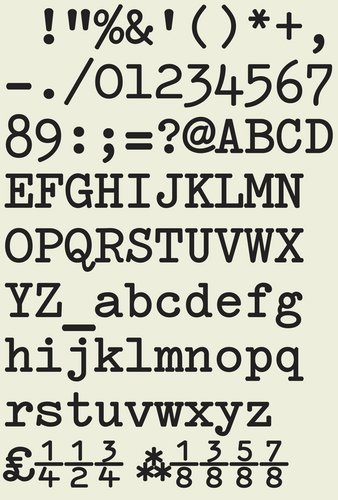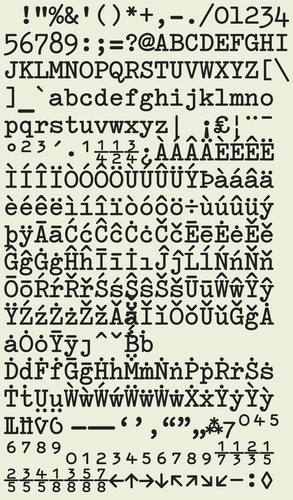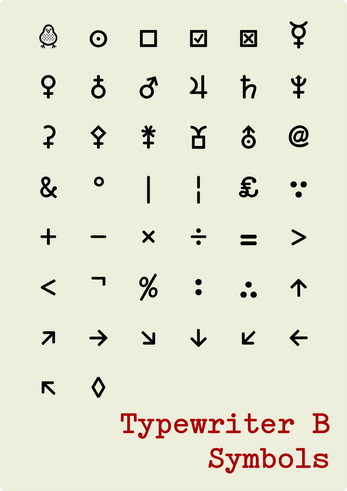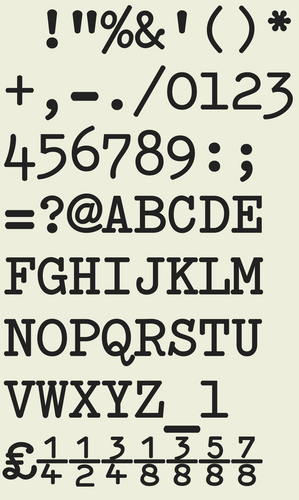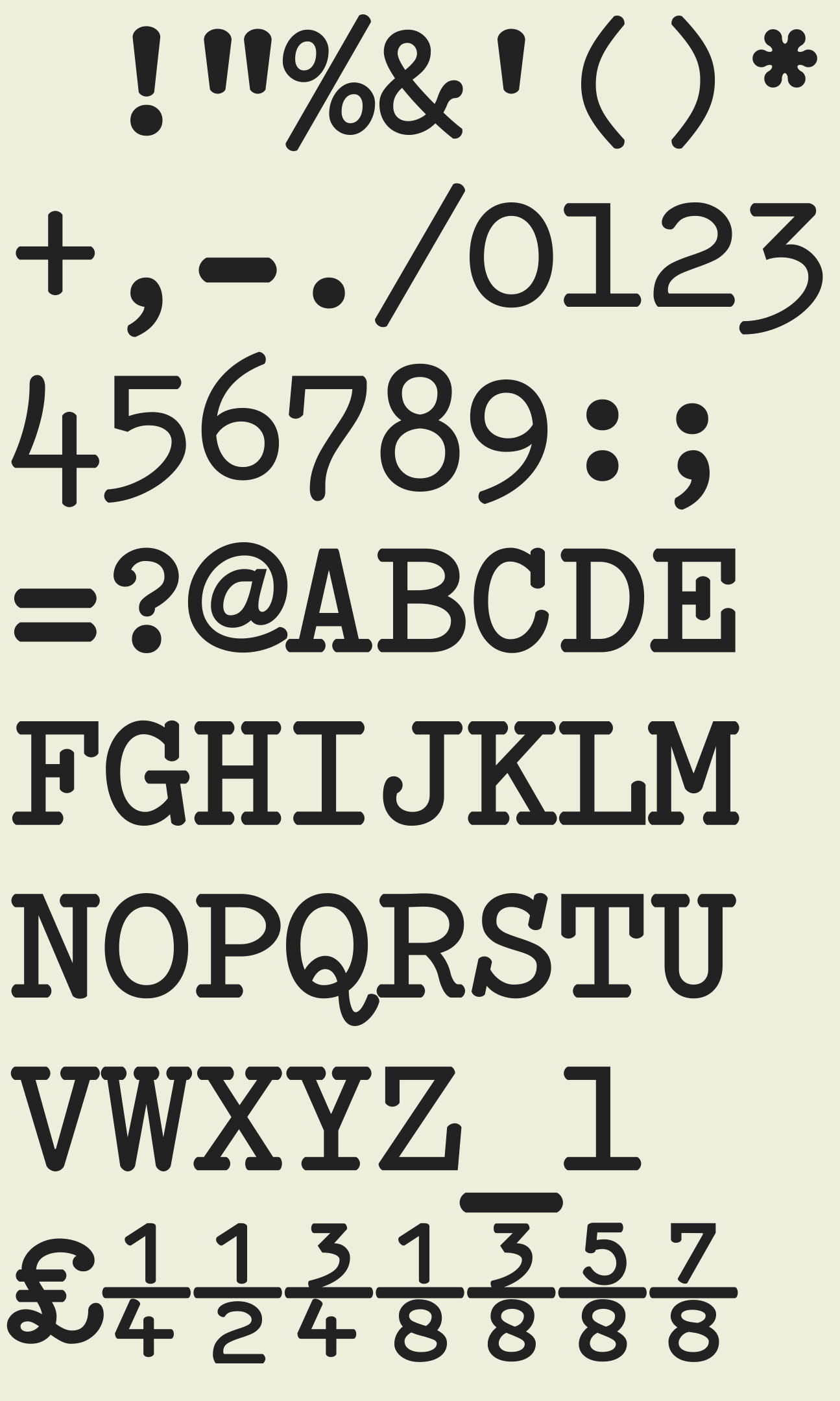
Typewriter B Font
B is for Brother (a robin-egg blue Brother De Luxe portable typewriter in not particularly good condition). It is fitted with a Pica font.
Print at 10 point to match original typewriter size and pitch. Default line spacing at that size is 12 point (120%) and matches single linespacing on the typewriter (6 lines per inch). Double linespacing is 240%.
The classic release has all the glyphs that the typewriter prints.
The extended release (on early access) has many more glyphs, and some OpenType Layout features for “fine typography”. Including Fediverse Symbol ⁂, curly quotes, dashes, small figures for superior and inferior numbers, a fuller set of fractions, additional language support, astronomical symbols, wayfinding arrows, and so on.
At 10 point text the horizontal frequency is 10.9 characters-per-inch, again matching the typewriter samples (it can be adjusted to 10cpi, see OpenType Features).
In addition to the usual OpenType Layout features required by language support, fractions, and smaller numbers (locl, subs, sinf, sups, frac and so on), there are two custom OpenType Features:
- ss02 Pica Pitch 10cpi, adjusts all widths so that the horizontal pitch is 10 characters per inch, matching the common typewriter pica pitch.
- ss01 Roseum One, replaces the 1 (one) glyph—normally a clone of l (little letter L)—with a clone of I (capital i), matching the preference of Roseum Team.
The typewriter has a half-position feature, accessed by holding down the space bar and then typing a letter. In partial emulation of this, this font has a half-width space: the Unicode character U+2004 THREE-PER-EM SPACE.
After the 2025-10 release, all new glyphs are ones that are not found on the typewriter.
Many Latin script languages are supported with accented letters, including Welsh, Slovenian, Māori, Irish, and Ento. Including for written Irish traditional dotted lenition (ḃ, ċ, ḋ and so on), ⁊ Tironian Et. Basic Middle-Welsh is supported.
This release also incorporates Astronomical Symbols and other changes made for Advent of Type.
And a bonus BIRD.
Added
- curly quotes, guillemet (quotes for French);
- bullet, lozenge, ballot boxes
- upside down exclamation and question mark (Spanish);
- minus, divide ÷, multiply ×, NOT SIGN ¬, and degree;
- numbersign #, <, >, ∴, ∵
- (square) brackets;
- em- and en-dashes, vertical bars, and arrows;
- fractions, all the Unicode fractions you can draw with the existing 1, 2, 3, 4, 5, 7, 8;
- superior and inferior numbers;
- Enough accents to support Welsh, Slovenian, Māori, and Ento, largely following Koeberlin Latin S: grave, acute, circumflex, macron, dot (above), diaeresis, caron (háček), diaeresis below;
- Þ þ Å å Ů ů
- Tironian Et (Irish);
- Middle-Welsh LL and V: U+1EFA U+1EFC U+1EFB U+1EFD
- Astronomical Symbols: SUN, (the planets) MERCURY, FEMALE SIGN (Venus), EARTH, MALE SIGN (Mars), JUPITER, SATURN, ASTRONOMICAL SYMBOL FOR URANUS, NEPTUNE, (the asteroids) CERES, PALLAS, JUNO, VESTA FORM TWO.
- U+1F426 BIRD (a robin)